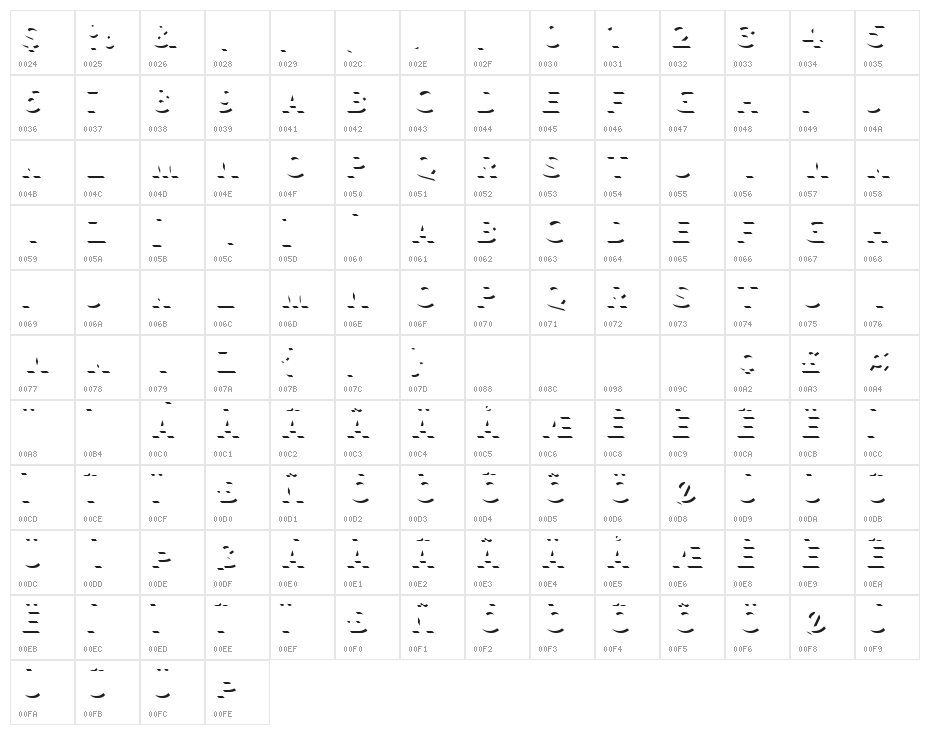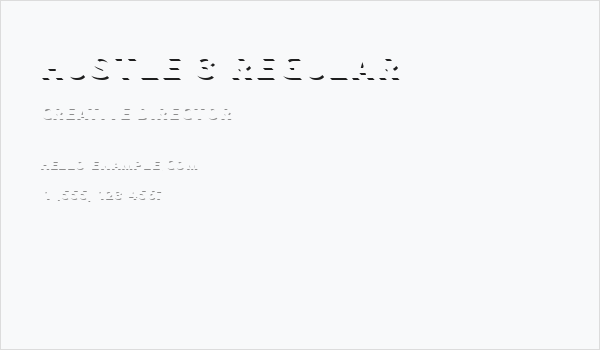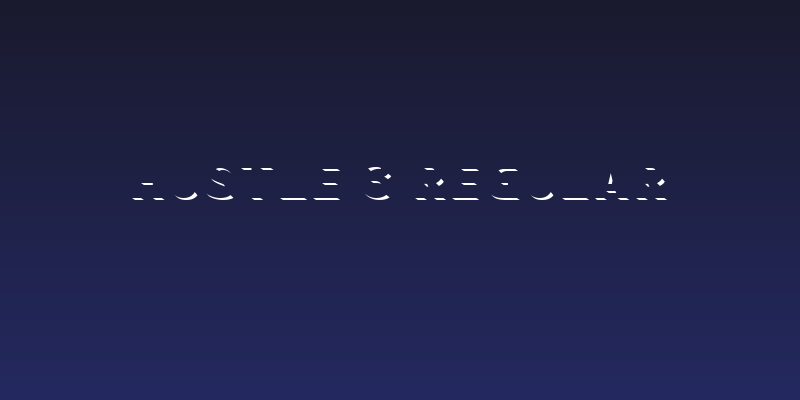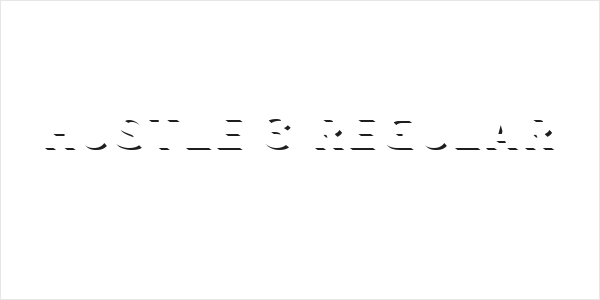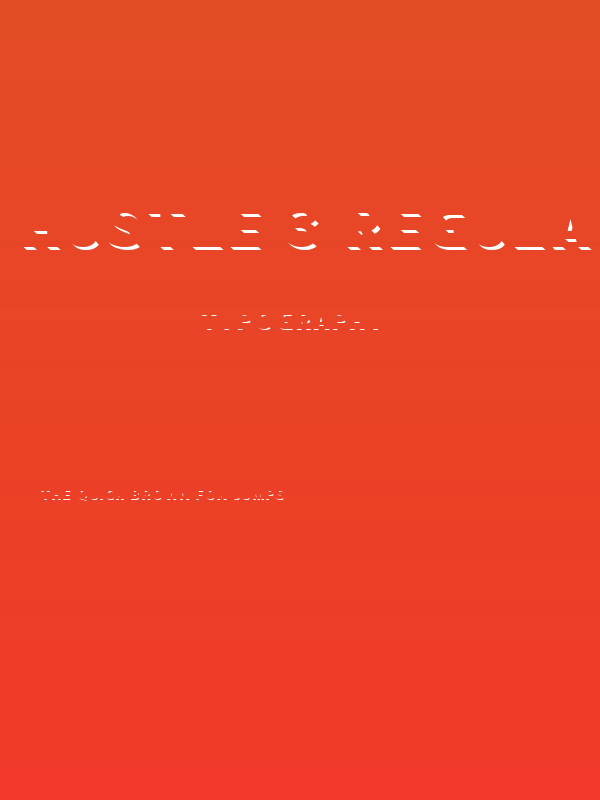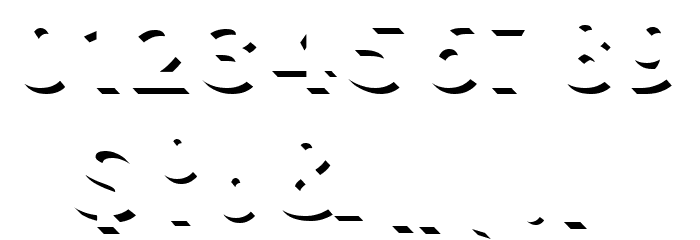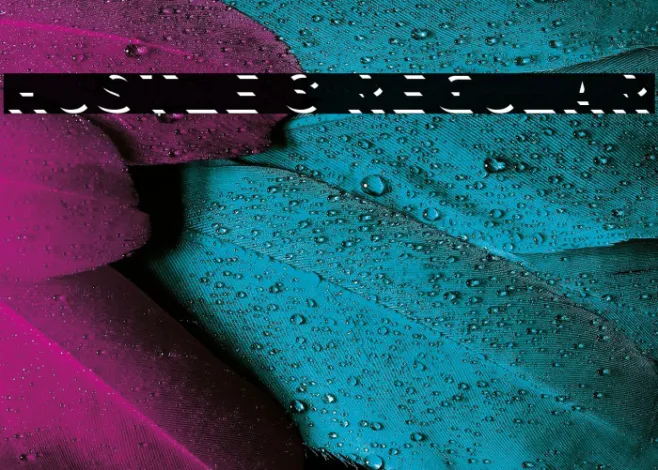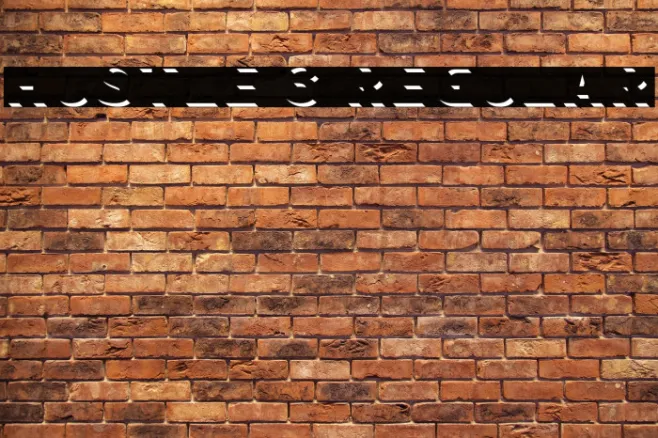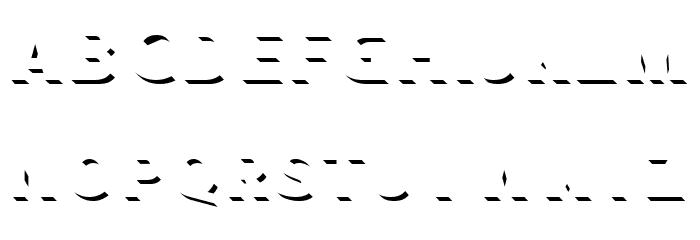
hustle 3 Regular Font
hustle 3 Regular Description
This font features a unique, modern design with a stencil-like appearance. Each character is composed of bold, solid lines interrupted by clean, consistent gaps, creating a striking visual effect. The uppercase and lowercase letters maintain a uniform style, enhancing readability while adding a touch of creativity. The numbers and special characters follow the same pattern, ensuring a cohesive look across all text elements. The font's geometric structure and high contrast make it ideal for eye-catching designs.
| Proposed Projects | Perfect for branding, posters, and headlines where a modern and creative look is desired. |